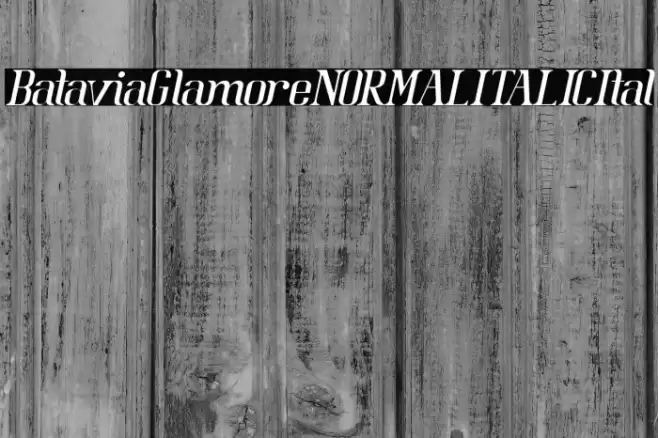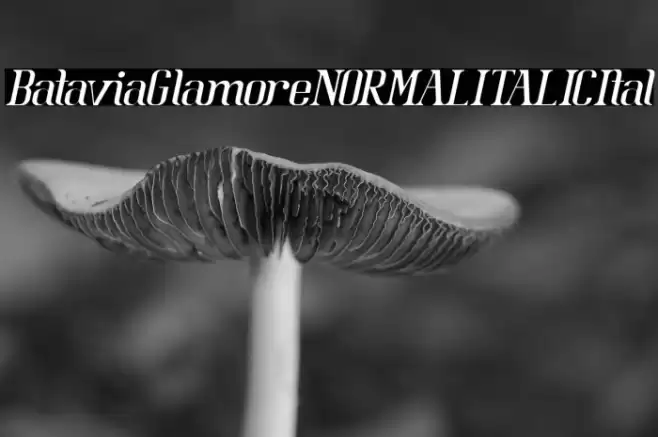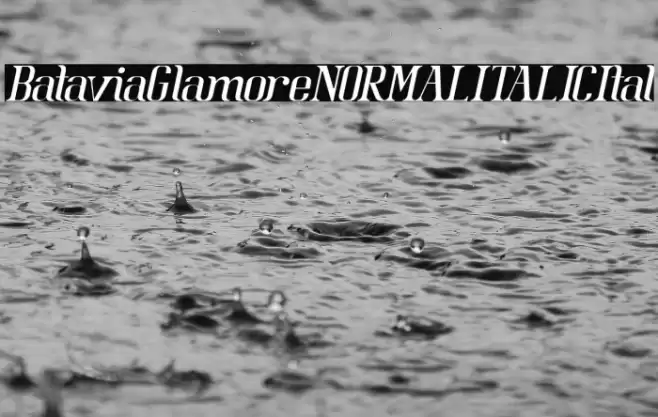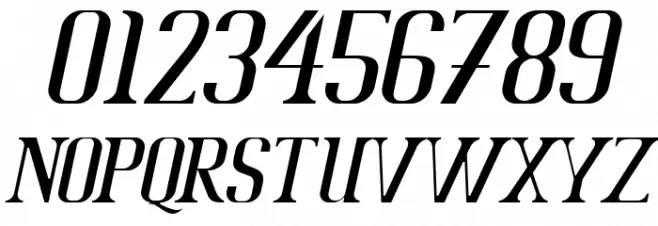
BataviaGlamoreNORMALITALIC-Ital Font
BataviaGlamoreNORMALITALIC-Ital Description
This font features a sophisticated and elegant italic style, characterized by its flowing and dynamic letterforms. The uppercase letters exhibit a strong presence with slightly exaggerated serifs, while the lowercase letters maintain a graceful and fluid appearance. The numerals are designed with a consistent slant, complementing the overall italic theme. Special characters are seamlessly integrated, enhancing the font's versatility. The combination of sharp angles and smooth curves gives it a modern yet timeless appeal, making it suitable for a variety of design applications.
An elegant and dynamic italic font with flowing letterforms and strong serifs from Uncategorized fonts.
- Proposed Projects: Ideal for branding, editorial design, fashion magazines, and elegant invitations.
- Use Case: Headlines, Logos, Editorial design